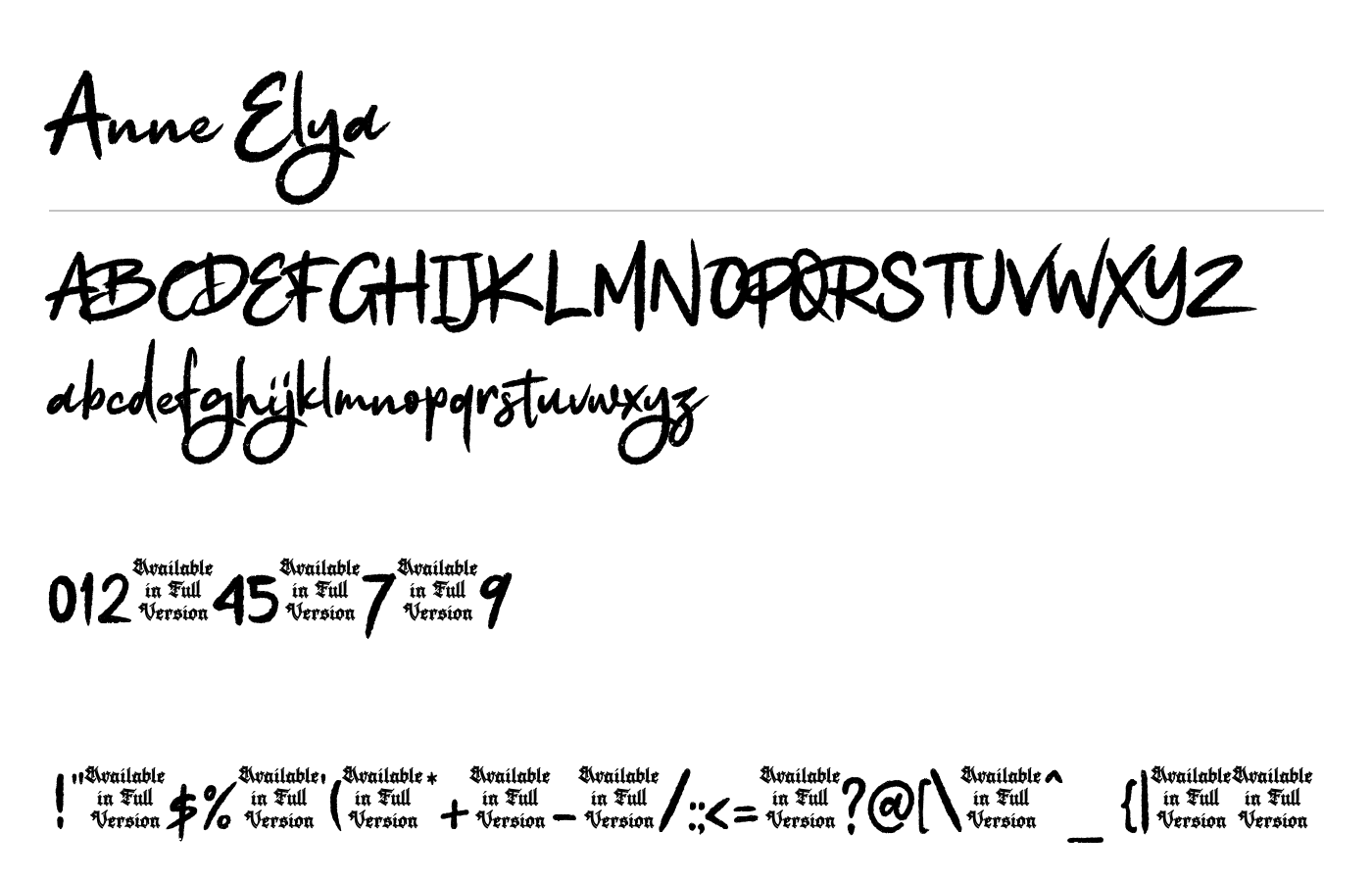
Anne Elya is a lively and expressive handwritten script font featuring fluid, natural strokes that mimic authentic brush lettering. Its casual, slightly messy style brings an artistic and personal touch, making it ideal for creative projects that seek a warm, approachable, and dynamic feel. This font works especially well for logos, invitations, and branding that want to convey creativity and friendliness.
Anne Elya Font
About Anne Elya Font